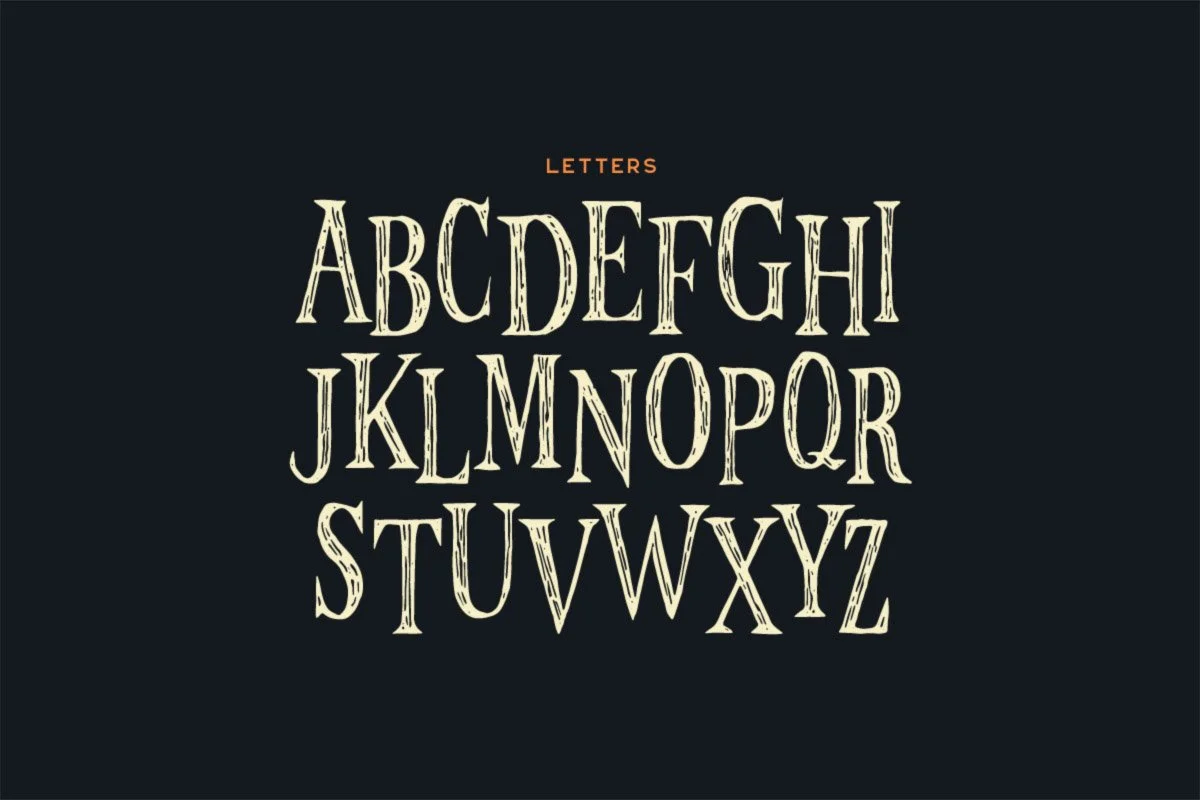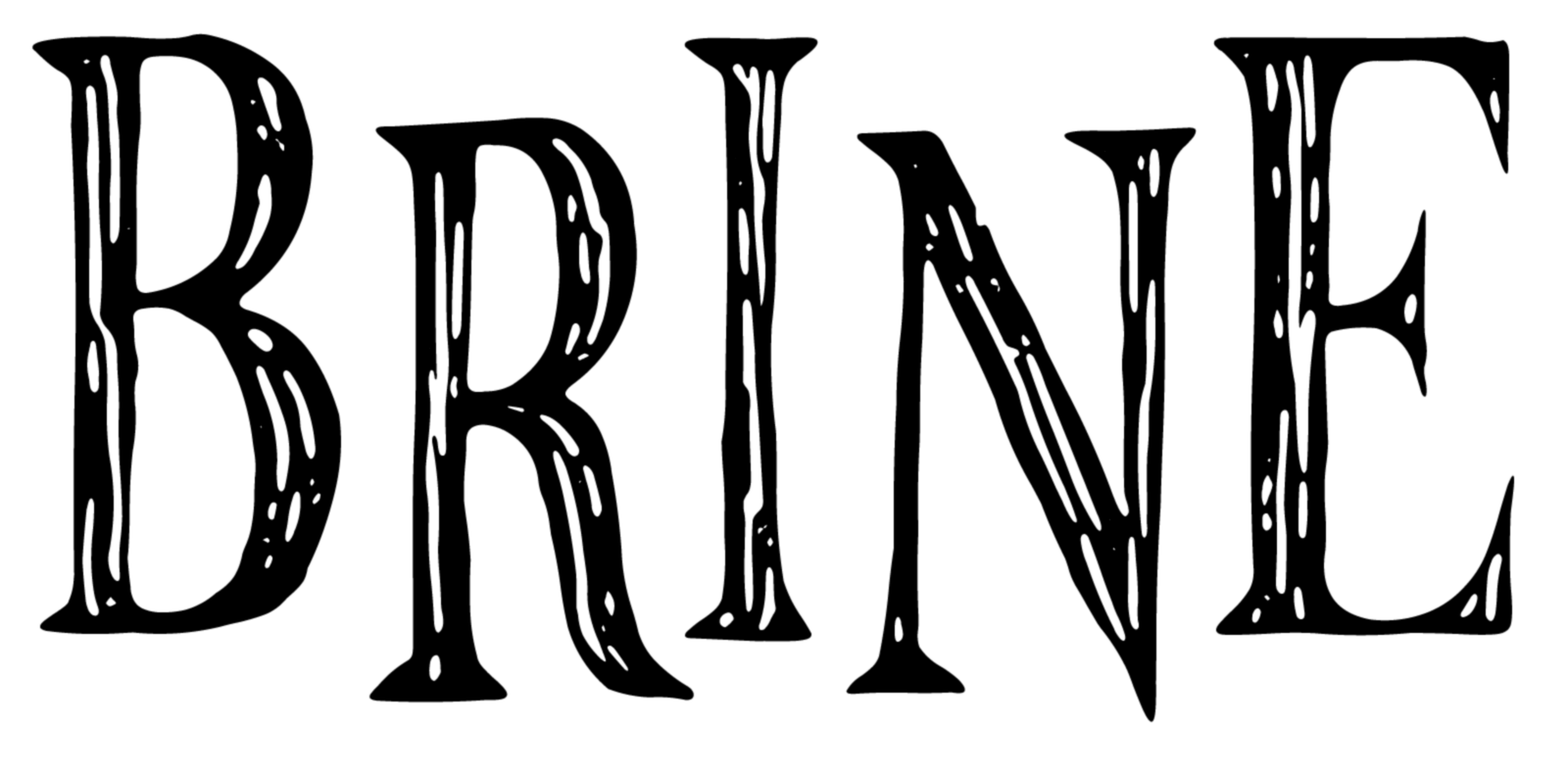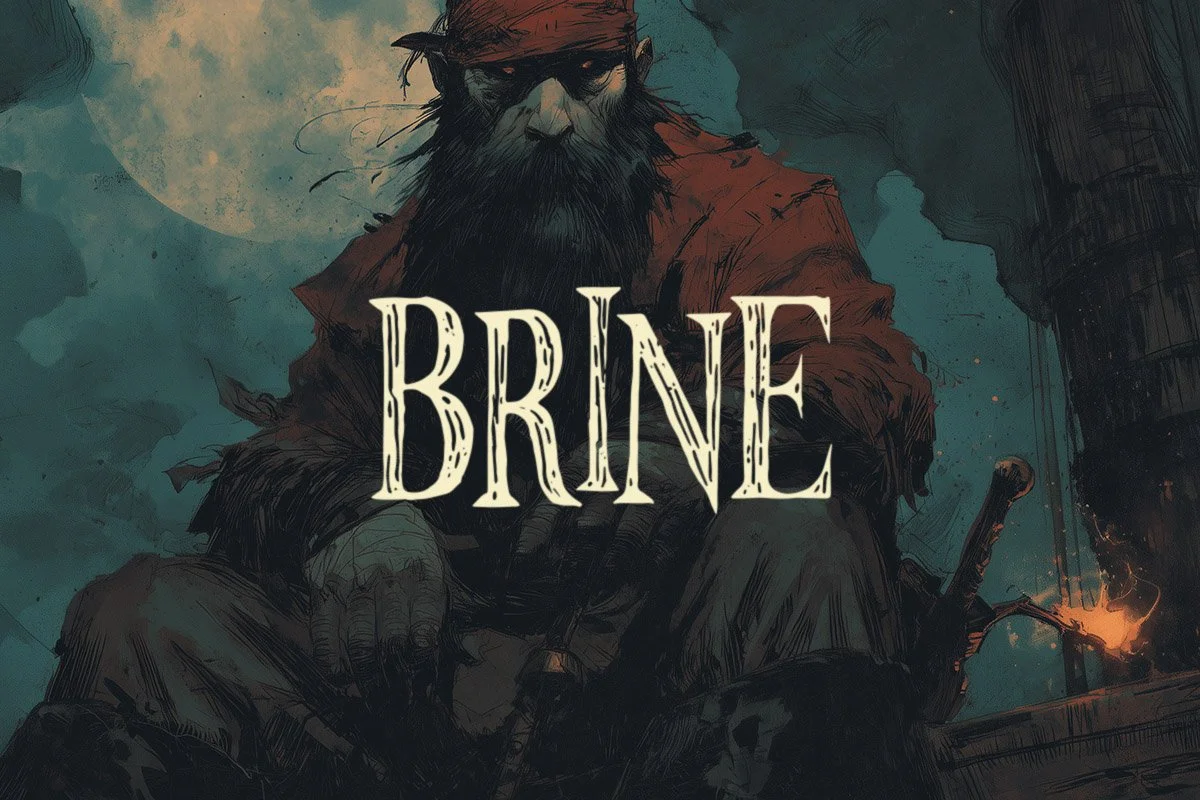
Brine is a weathered vintage serif with alternate vertical letter positioning. You can change the vertical positions of the letters by toggling Caps Lock.